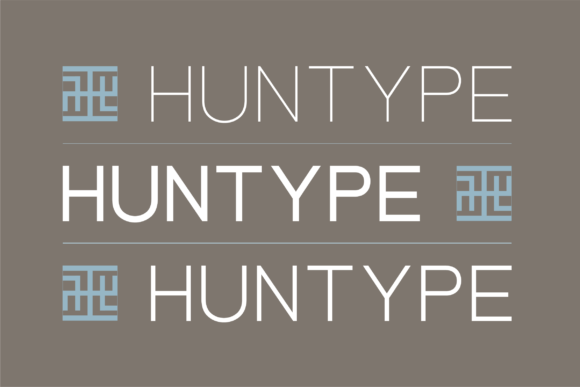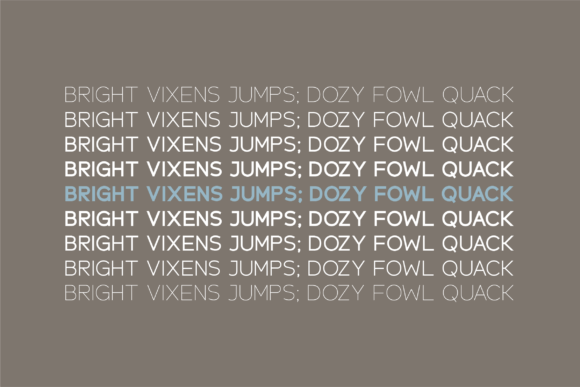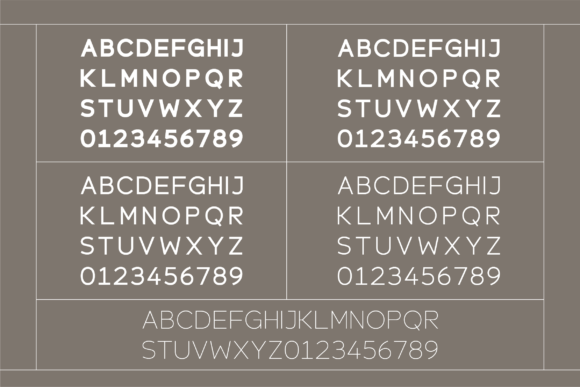
Introduction to Levisticum Font
Have you ever been working on a creative project, staring at a blank screen, and suddenly a spark of inspiration hits you? That’s exactly what happens when you discover the perfect font. For designers and content creators, finding the right font can make all the difference in bringing a project to life. And that’s where Levisticum Font comes in – a versatile and sophisticated font family that offers endless possibilities for creative expression.
Whether you’re working on a high-quality design project that requires a subtle and delicate touch or a bold and impactful statement, Levisticum Font has got you covered. With its seamless blend of sophistication and contemporary style, this font family ensures your projects will shine with distinction. Plus, with a free download option available, you can start experimenting with Levisticum Font right away and see the magic happen.
Key Features of Levisticum Font
- High-quality design resource ideal for creative projects, including logos, branding, and advertisements.
- Transparent background, allowing for seamless integration with various design elements and backgrounds.
- Includes a range of weights and styles, from light to bold, to suit different design needs.
- Designed with a modern and elegant aesthetic, perfect for contemporary creative projects.
Honest Review: Levisticum Font
As a designer, I’m always on the lookout for high-quality design resources to elevate my creative projects. The Levisticum Font caught my attention, and I decided to give it a try.
What works well: ✨ The Levisticum Font is incredibly versatile, making it perfect for a wide range of creative projects, from modern branding to elegant typography. The font’s clean and minimalist design ensures that it will never overpower the content. Additionally, the transparent background allows for seamless integration into any design.
Free download and high-quality design make this font a valuable resource for designers. I particularly appreciate the attention to detail that the creators have put into this font, resulting in a professional finish.
Limitations: ⚠️ One potential drawback is that the Levisticum Font might not be suitable for projects that require a bold, attention-grabbing font. However, for more subtle and elegant designs, this font shines.
- Versatile for various creative projects
Overall, I’m impressed with the Levisticum Font. It’s a valuable addition to any designer’s toolkit, and I would highly recommend it for creative projects that require a touch of sophistication and elegance.
Tips for Getting the Most Out of Levisticum Font
To get the most out of the Levisticum Font, experiment with different font sizes, colors, and styles. Use the font’s transparent background feature to create unique and eye-catching designs. Don’t be afraid to combine the Levisticum Font with other design elements to create a truly creative project.
The Levisticum Font is perfect for a variety of creative projects, including logos, graphics, and typography-based designs. Its high quality and transparent background feature make it an ideal choice for designers, artists, and writers looking to add a professional touch to their work.